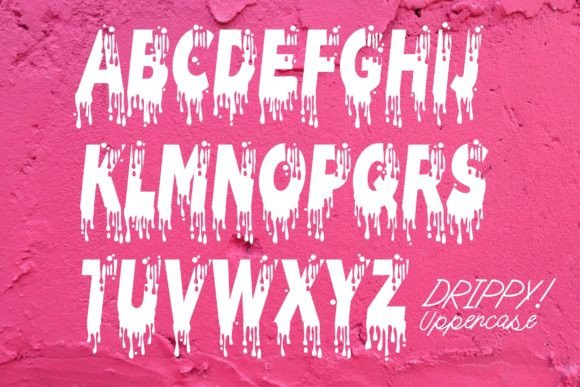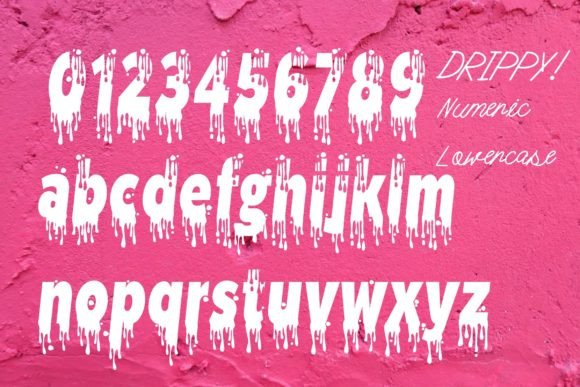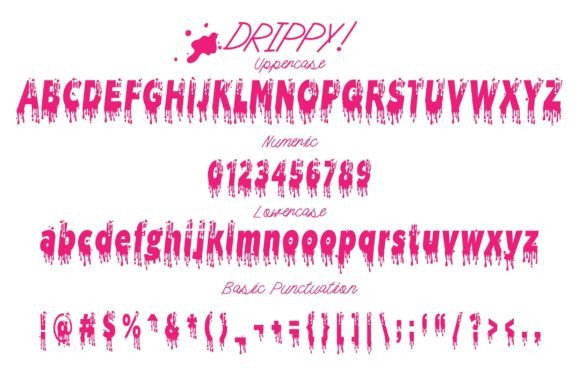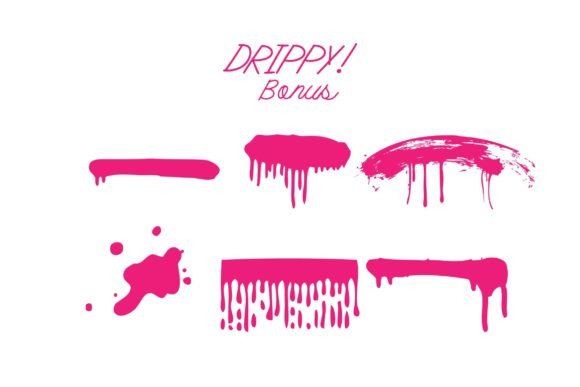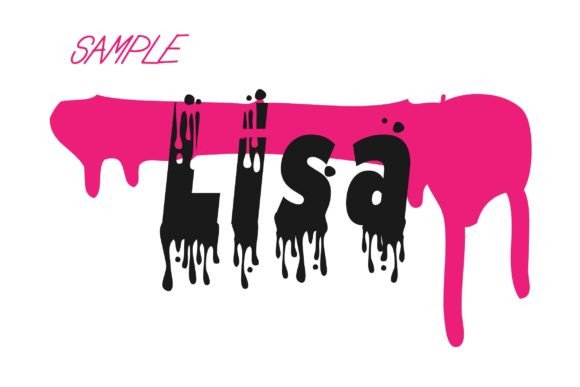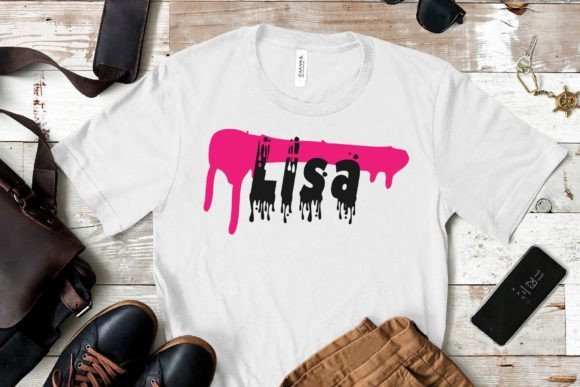
The Perfect Splash of Personality: Drippy! Font
As a designer, there’s nothing quite like the thrill of discovering a new font that perfectly captures the essence of a project. You’re brainstorming ideas for a quote or a teaching material, and suddenly, a font comes along that makes everything click. For me, that font is Drippy! – a unique and original display font that’s as thick as it is charming.
With its authentic look and feel, Drippy! Font adds a personal and realistic touch to any design. Whether you’re creating a quote, a poster, or a teaching aid, this font is sure to make your content stand out. Its value lies in its versatility – it’s perfect for designers looking to add a bit of whimsy to their projects, or for those who want to create a more approachable and relatable feel.
Drippy! Font Key Features
- Unique Characteristics: Drippy! Font features a distinctive, hand-painted style with subtle texture and imperfections, giving it a unique, organic feel.
Drippy! Font Review
I recently had the chance to work with Drippy! Font, and I’m excited to share my honest review with you. Overall, I found it to be a unique and fun addition to any design project.
- Playful and fun design aesthetic – Drippy! Font is perfect for adding a touch of whimsy to your designs.
- High-quality glyphs – The font’s letters and symbols are well-crafted and look great at various sizes.
- Easy to read – Despite its playful design, Drippy! Font is surprisingly legible, making it suitable for a wide range of applications.
- Limited font weight options – While the font has a range of styles, the weight options are somewhat limited, which can make it difficult to achieve a consistent look.
- Not ideal for formal or professional designs – Drippy! Font’s playful design may not be suitable for more formal or professional projects, where a more conservative font is often preferred.
I’d highly recommend Drippy! Font for designers looking to add some personality to their work. While it may have some limitations, its unique design aesthetic and high-quality glyphs make it a valuable addition to any design library.
For best results, use Drippy! Font in bold or italic styles to add emphasis.
- Water-inspired designs (e.g. ocean, waves, ripples)
- Food and beverage branding (e.g. ice cream, juice, soda)
- Summer-themed designs (e.g. beach, pool, sun)
Alternatives to Drippy! Font for Designers
Great Vibes Font is a modern, elegant script font that is perfect for adding a touch of sophistication to your designs. It’s great for use in invitations, wedding stationery, and other special occasion materials. Compared to Drippy! Font, Great Vibes Font has a more refined and polished look, making it ideal for formal events and high-end branding.
Pacifico Font is a beautiful, cursive script font that is inspired by the art deco era. It’s great for use in designs that require a touch of elegance and sophistication, such as fashion branding, packaging, and advertising materials. Compared to Drippy! Font, Pacifico Font has a more relaxed and casual feel, making it perfect for designs that require a laid-back vibe.
Carolyna Pro Font is a modern, elegant script font that is perfect for use in designs that require a touch of sophistication and luxury. It’s great for use in high-end branding, advertising materials, and special occasion designs. Compared to Drippy! Font, Carolyna Pro Font has a more refined and polished look, making it ideal for formal events and high-end branding.
Q: What is the recommended font size for optimal readability with Drippy! Font?
The recommended font size for optimal readability with Drippy! Font is between 12 and 14 points. However, this may vary depending on the specific design application, screen resolution, and personal preference.